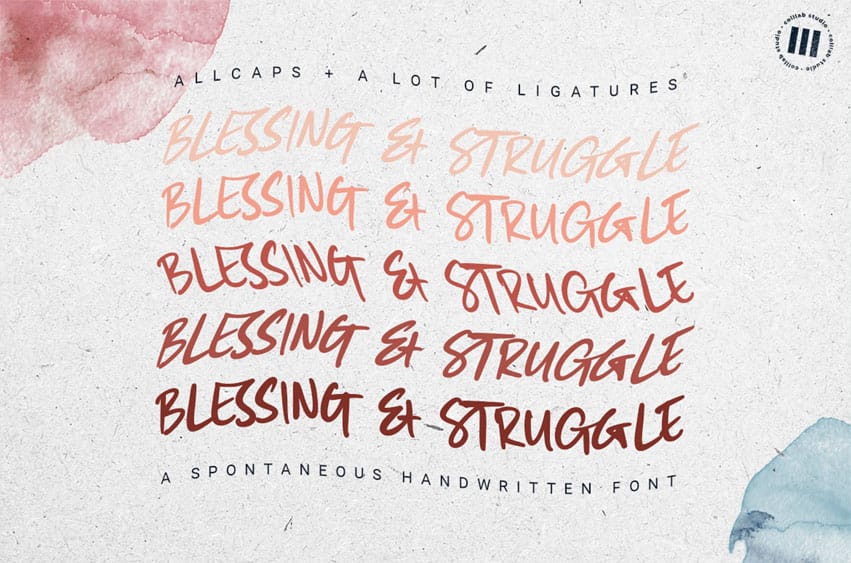
Blessing and Struggle Font is a quick handwritten font. It can be displayed on any titles, logo, product packaging, branding project, magazine, social media, wedding, or just used to express words above the background.